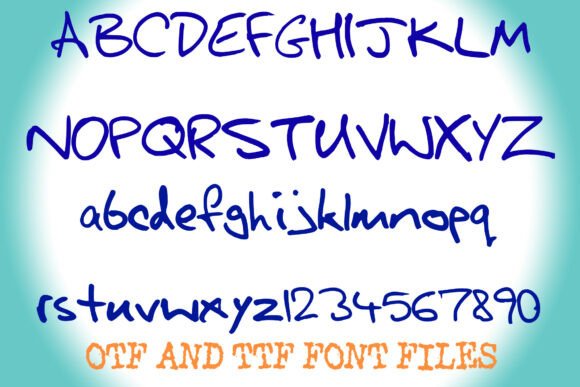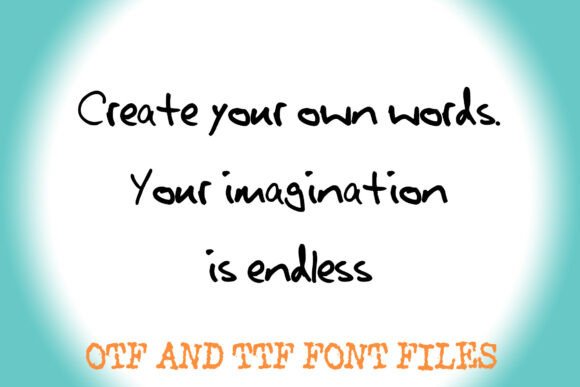
When Handwritten Notes Become a Design Classic
We’ve all been there – scribbling down a love note, jotting down a to-do list, or simply writing a heartfelt letter to a loved one. The imperfections, the quirks, and the natural flow of our handwriting are what make it so uniquely ours. But have you ever wanted to capture that essence in your design work?
Enter the Boyfriends Handwriting Font, a beautifully crafted typeface that distills the essence of real handwriting into a digital format. This font is more than just a pretty face – it’s a reflection of the imperfections and authenticity that make human connection so special. Designers love it because it adds a touch of warmth and personality to their work, making it stand out in a world of generic typefaces.
Boyfriends Handwriting Font Key Features
- Font Family: Boyfriends Handwriting Font, a unique and cursive handwritten font designed to mimic the style of a boyfriend’s handwriting.
- Unique Characteristics: The font features a playful, casual, and expressive style, with irregular letterforms and subtle variations in line width and spacing, giving it a personal and handwritten feel.
Designer Review: Boyfriends Handwriting Font
Overall, I’m quite impressed with the unique character of “Boyfriends Handwriting Font”! It’s perfect for adding a personal touch to your designs. ✨ I love how the font captures the imperfections of handwritten text, making it feel authentic and relatable. It’s a great choice for social media graphics, posters, and other design elements where you want to convey a sense of casualness.
- ✨ Unique character: The font’s imperfections make it stand out from more traditional fonts.
- ✨ Versatile: It can be used for a variety of design elements, from headings to body text.
- ✨ Easy to read: Despite its imperfections, the font is still easy to read, even at smaller sizes.
- ⚠️ Limited legibility: The font may not be the best choice for large blocks of text or for use in small sizes.
- ⚠️ Limited customization: While the font is unique, it may not be suitable for designs that require a lot of customization or flexibility.
Overall, I’d recommend “Boyfriends Handwriting Font” for designers who want to add a touch of personality to their designs. Just be mindful of its limitations and use it sparingly to maximize its impact.
To get the most out of the Boyfriends Handwriting Font, use it in creative and personal projects such as:
– Invitations and party decorations
– Personalized gifts and cards
The Boyfriends Handwriting Font is commonly used in:
– Wedding invitations and decorations
– Baby shower invitations and decorations
– Personal